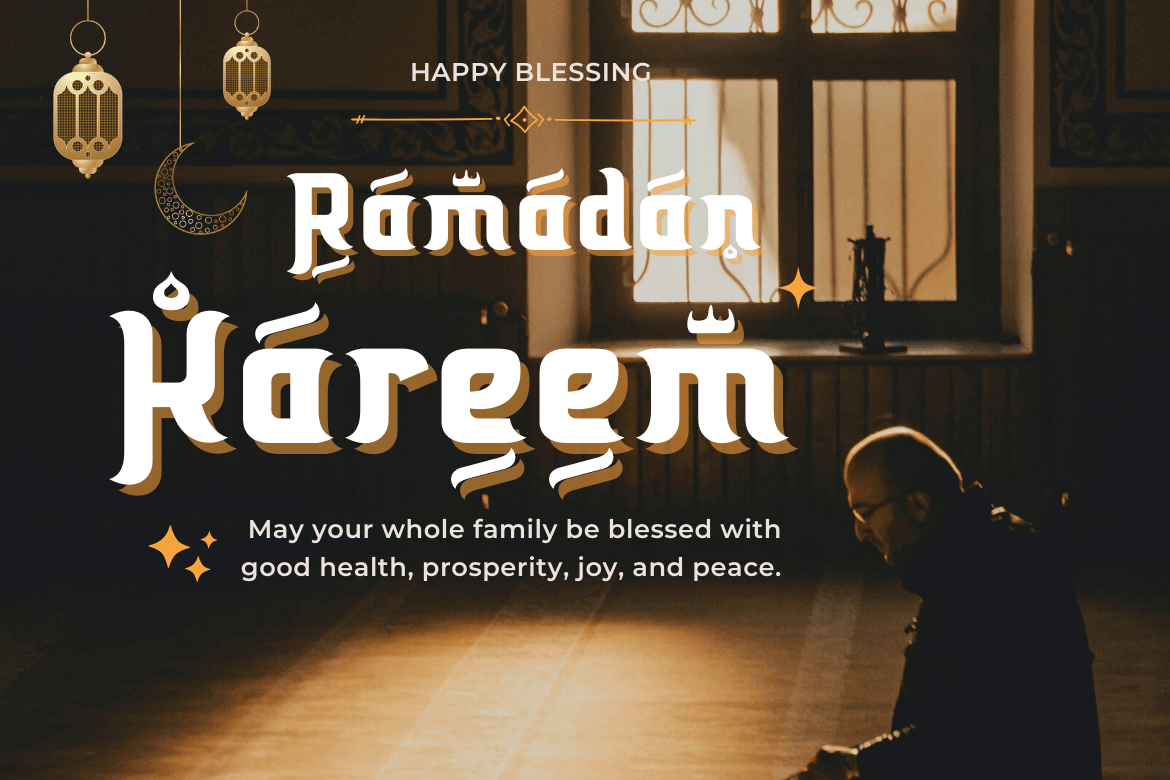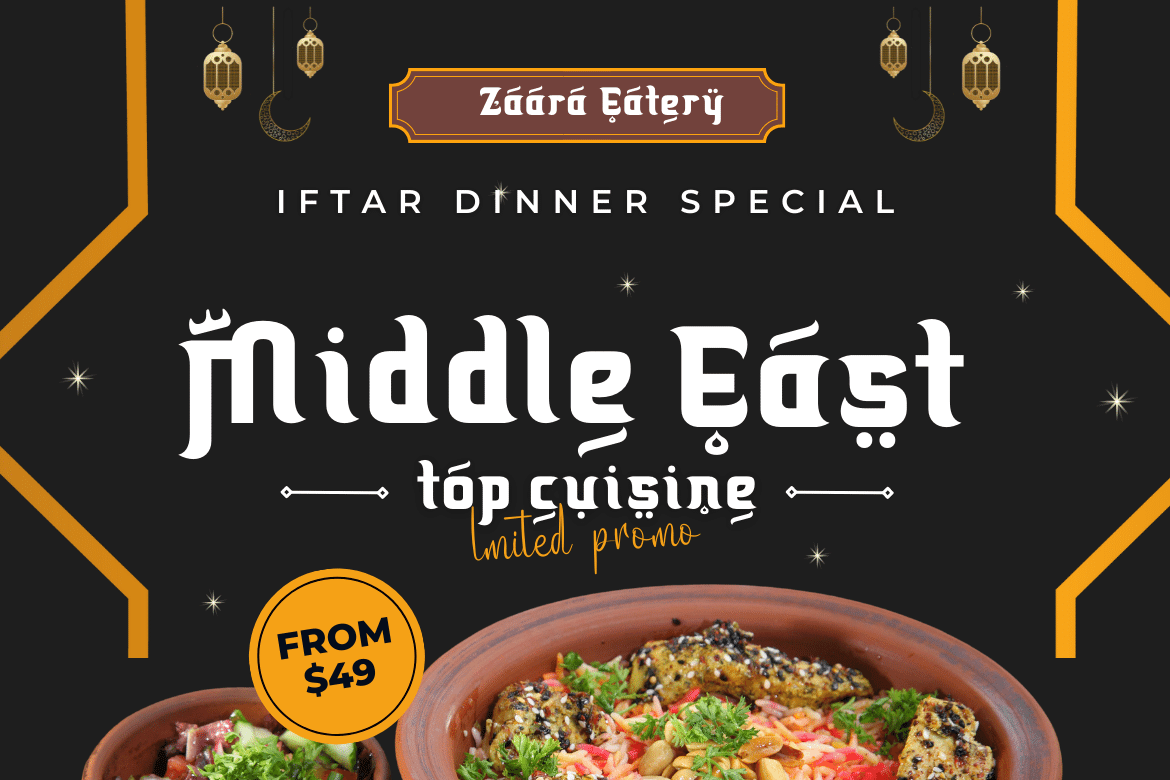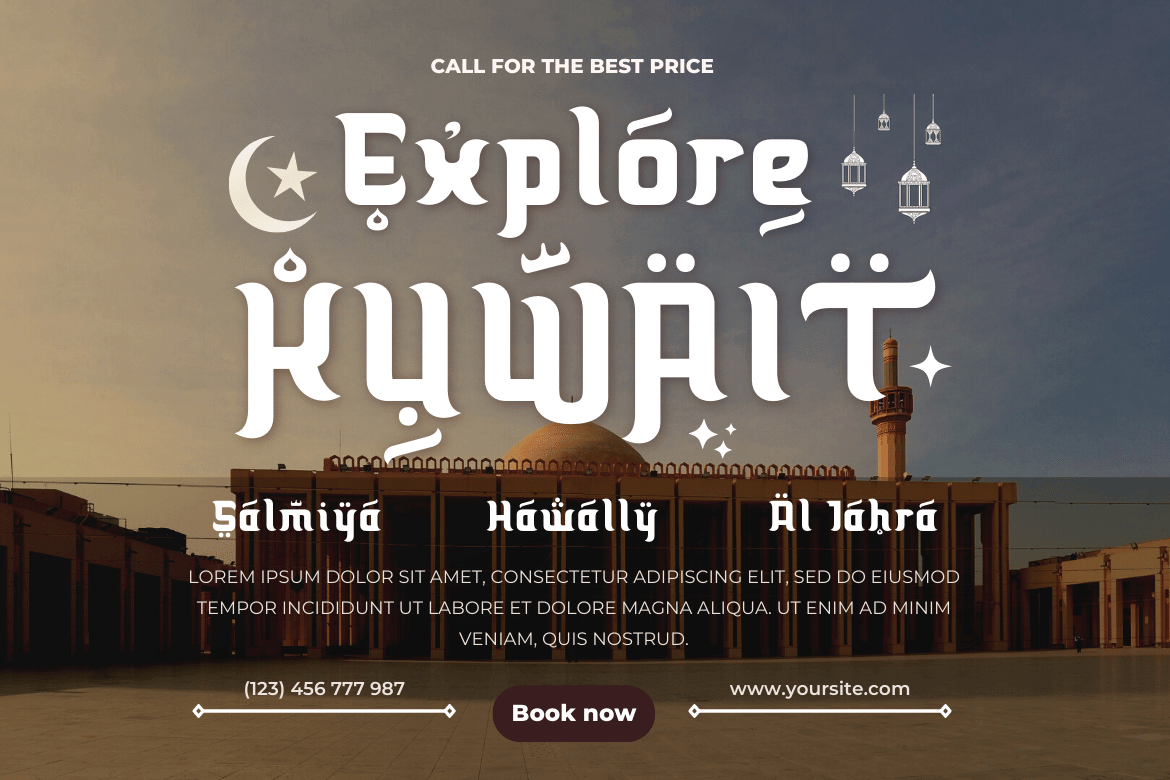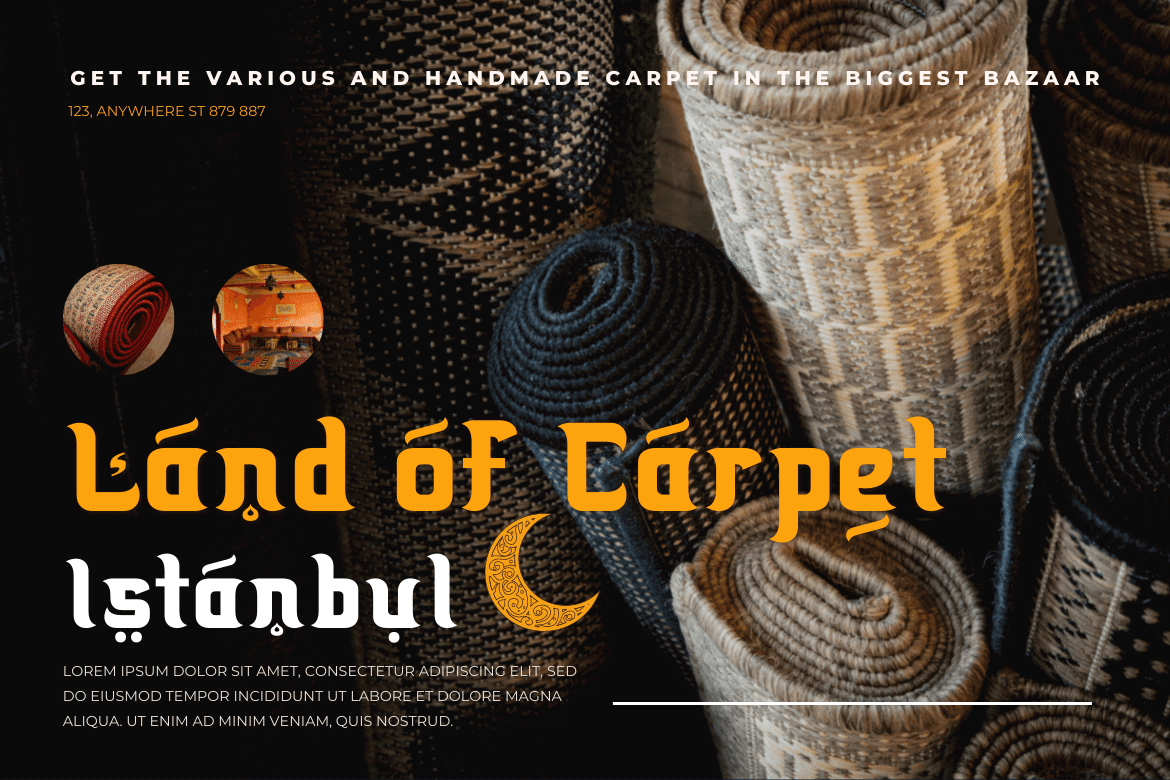
Makwus Display Font
Introducing our newest font called Makwus, one of our newest premium fonts based on Arabic style. This elegant font has a targeted audience and is perfect for personal and professional projects, from social media ads to business cards to your logo and project headers. This Makwus font designed by experienced typographers can bring a beautiful new level of luxury to your designs.